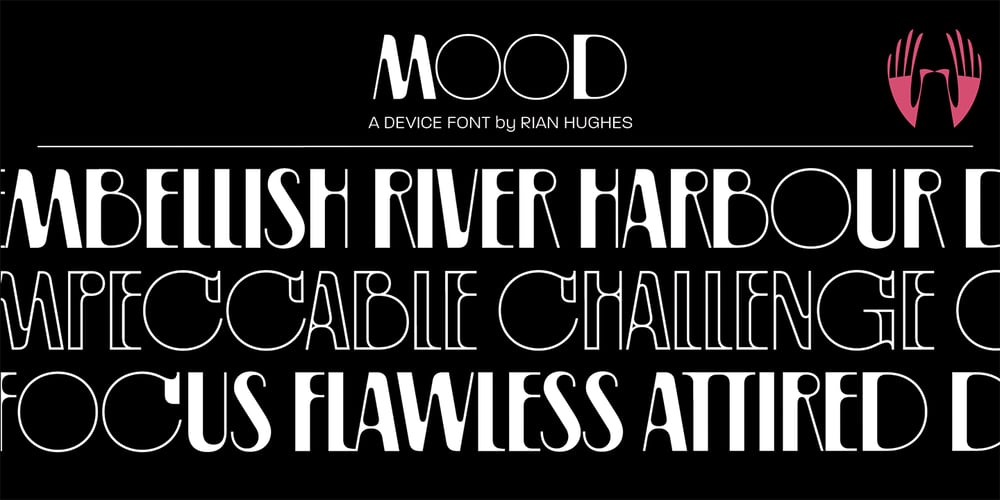
Mood
Mood font
Mood Font Family was designed by Rian Hughes and published by Device. Mood contains 2 styles and family package options. A sleek and elegant high-contrast sans with a hint of high fashion and a touch of tomorrow. Available in two versions that can be freely mixed for effect, each with alternatives for the M, P, Q, R and W that are available via the Stylistic Alternates feature in Adobe Illustrator, as a Stylistic Set in Indesign, or direct from the Glyphs palette